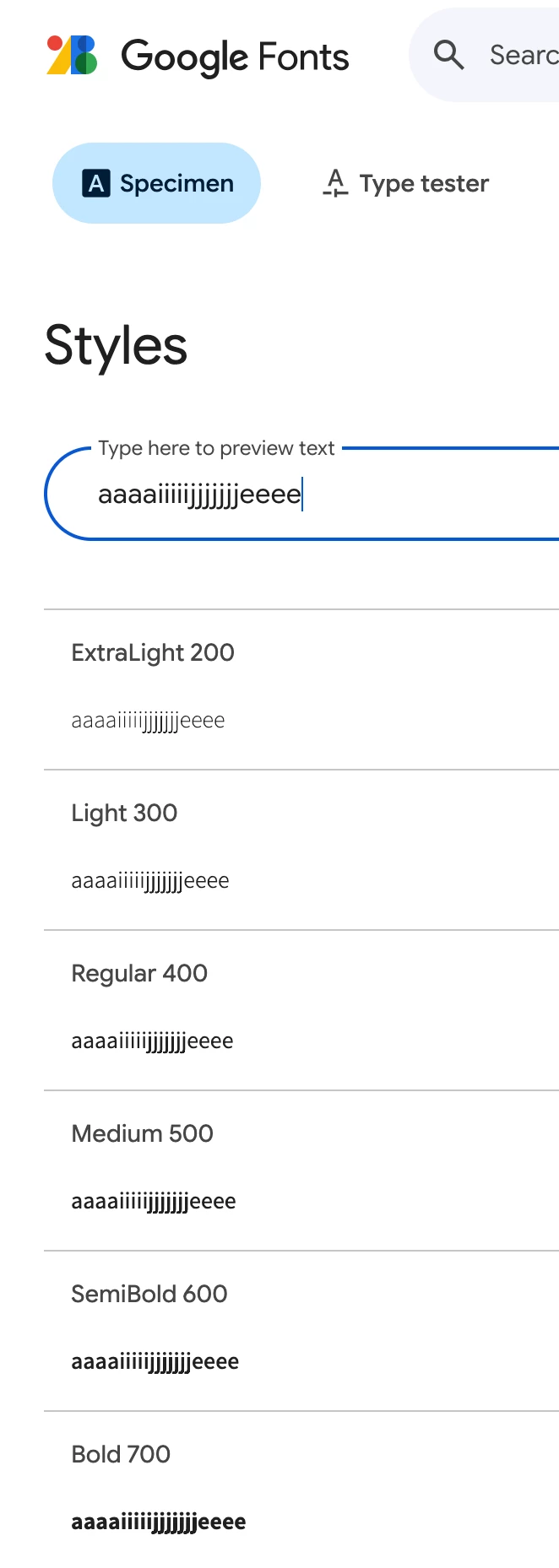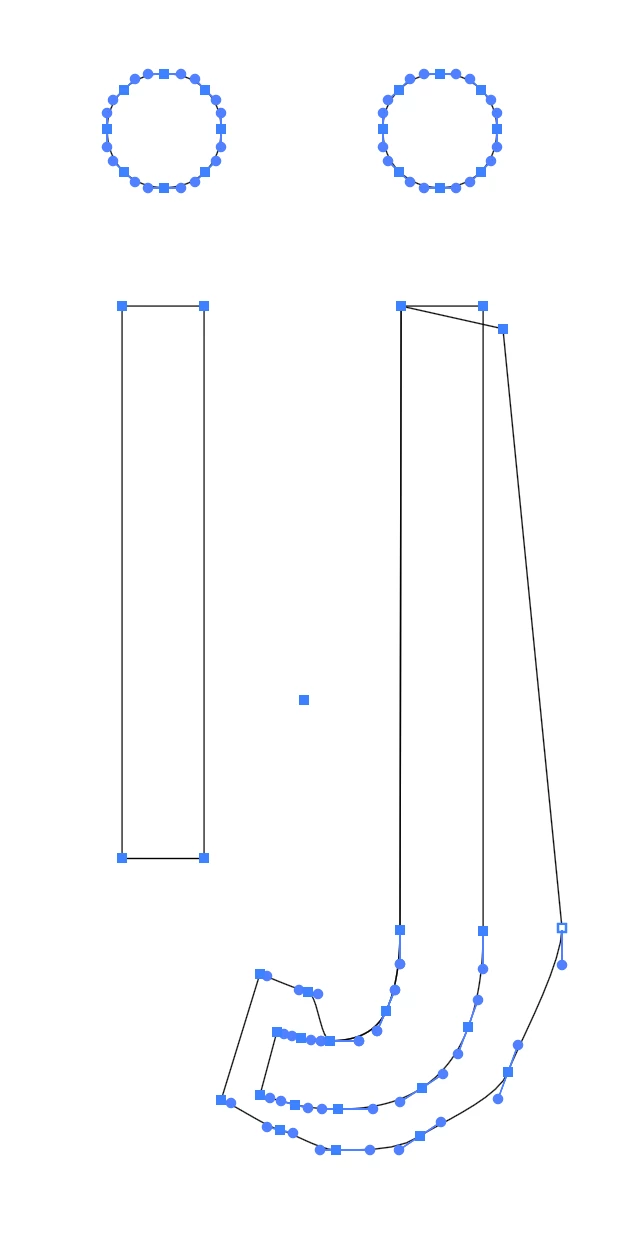
Letter 'J' of Assistant font is bolder than other characters, any alternate fonts?
I have to use the word 'project' multiple times on my dashboard screen and the 'j' looks bolder than the rest and looks quite off. I was using Assistant font which looked quite professional. Any alternate font that I can use?
Assistant seems to be an extension of Source Sans – which would be the font to choose instead (FYI Ben Nathan is not a type designer at Adobe).
The j-bug in Assistant seems to be known and is tracked here, but the repo hasn’t been updated in 5 years:
Alternative choice if Hebrew is required:
Alternative choice if Hebrew is not required:
I'm having trouble duplicating the problem with the Assistant typeface. The lowercase "j" looks normal to me, using both static and variable versions downloaded from the Google Fonts web site. However, I'm using graphics applications like Adobe Illustrator to preview the type family. The on-screen rendering there may differ from the dashboard application you're using. Are you using a static or variable version of Assistant?
As to alternatives, the typeface looks a little like News Gothic with a slight Officina Sans twist to it. Proxima Nova might be a good alternative.
I'm a little surprised Assistant isn't available at Adobe Fonts since a type designer at Adobe (Ben Nathan) created it.
Both versions have the same issue, which is especially noticeable when reading the font at small sizes on a low-density screen (non-Retina display or similar):
Upon closer inspection, the problem appears to be that the body of the letter "j" contains a duplicated vector, causing it to render with increased boldness: